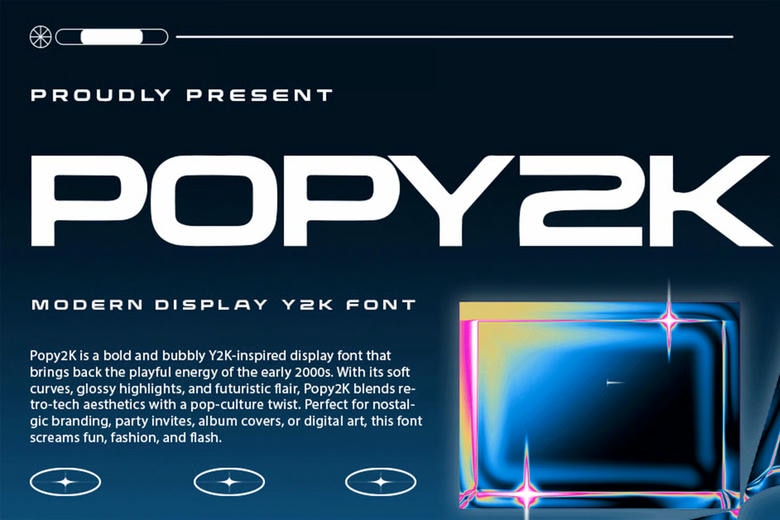
Popy2k Font
Popy2k is a trendy and daring contemporary display font that refers to the representative designs of the early 2000s. Worthy of every design that needs some attention and character, Popy2k encompasses the very epitome of Y2K nostalgia with its shiny tech-inspired contours, playful geometry and futuristic curves.
You want to make album covers, fashion labels, website headers or do something experimental, well, with this font you can have that retro-futurism kick! Perfect when one wants to capture the taste of millennium-era energy with a sort of new, modern touch. Contain uppercase and lowercase letters, numerals, punctuations, and multilingual.
Popy2k Display Font